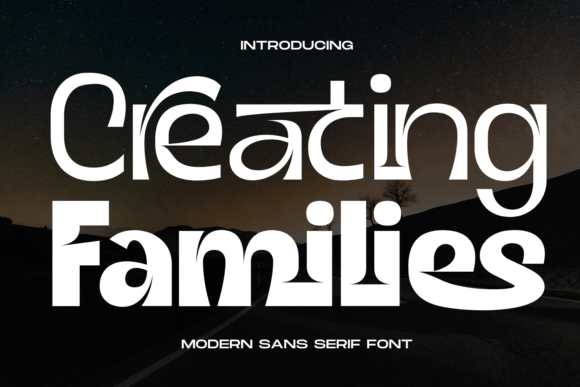
Creating Families Font: A Modern Display Typeface for Impactful Branding
In the world of typography, fonts play a crucial role in shaping brand identities and making a lasting impression on audiences. With the ever-evolving landscape of design, it’s essential to have access to versatile and visually striking typefaces that can elevate brands and set them apart from the competition. Introducing Creating Families Font, a modern display typeface that seamlessly blends bold geometric forms with smooth, clean lines, making it perfect for creating a striking impact in both print and digital media.
Key Features of Creating Families Font
- Modern Display Typeface: Creating Families Font boasts a sleek design that effortlessly combines geometric shapes with clean lines, resulting in a visually stunning typeface.
- Versatility: This font is perfect for a wide range of applications, including logos, modern websites, packaging, business cards, and more.
- OpenType Features: Creating Families Font was built with OpenType features, providing users with 100 ligatures, alternate characters, numbers, punctuation, and support for multiple languages.
The Benefits of Using Creating Families Font in Your Design
Creating Families Font is more than just a typeface – it’s a design tool that can elevate brands and make them both distinctive and memorable. Its versatility allows it to seamlessly adapt to various styles and industries, making it an excellent choice for designers and businesses alike.
With Creating Families Font, you can:
- Create a strong brand identity that stands out from the competition
- Make a lasting impression on your audience with a visually striking typeface
- Effortlessly adapt to various design styles and industries
- Take advantage of OpenType features to add an extra layer of creativity to your design
Exploring the Various Use Cases for Creating Families Font
Creating Families Font is an incredibly versatile typeface that can be used in a wide range of applications. Here are some examples of how you can utilize this font in your design:
- Logos: Create a bold and memorable logo that sets your brand apart from the competition.
- Websites: Use Creating Families Font to create a modern and visually striking website that captures your audience’s attention.
- Packaging: Add a touch of sophistication and elegance to your packaging with this stunning typeface.
- Business Cards: Make a lasting impression on potential clients and partners with a business card that features Creating Families Font.
Typography Tips for Working with Creating Families Font
When working with Creating Families Font, here are some typography tips to keep in mind:
- Experiment with Ligatures: Take advantage of the 100 ligatures included in Creating Families Font to add an extra layer of creativity to your design.
- Play with Font Sizes: Don’t be afraid to experiment with different font sizes to create visual hierarchy and add emphasis to specific design elements.
- Pair it with Other Fonts: Creating Families Font works well with other fonts, so don’t be afraid to experiment with font pairings to create a unique and visually striking design.
| Font Name | Creating Families Font |
| Author | 177Studio |
In conclusion, Creating Families Font is a modern display typeface that offers a unique blend of bold geometric forms and smooth, clean lines. Its versatility, OpenType features, and extensive language support make it an excellent choice for designers and businesses looking to create a striking impact in both print and digital media. Whether you’re working on a logo, website, packaging, or business card, Creating Families Font is sure to elevate your brand and make it both distinctive and memorable.